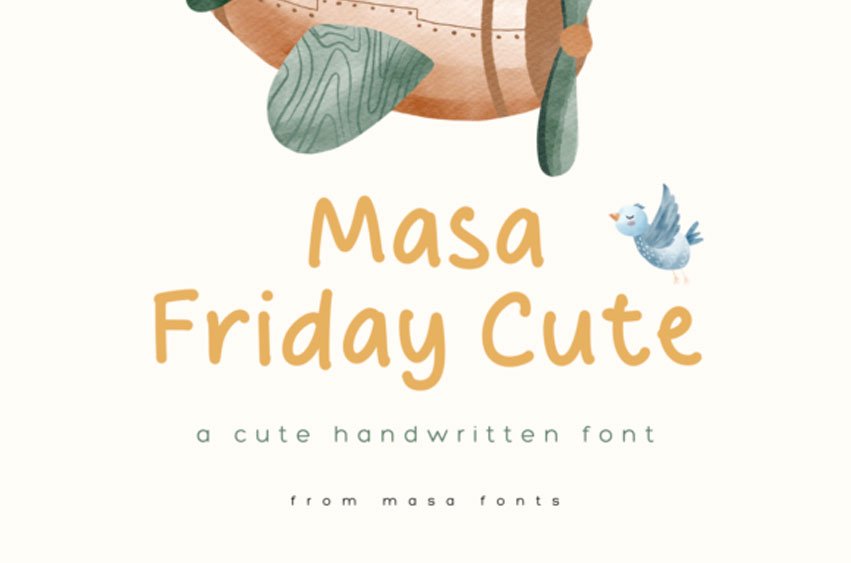
Masa Friday Cute Font is a cute, friendly and fun display font.
Whether you’re using it for crafts, digital design, presentations, or making greeting cards, this font has the potential to become your favorite go-to font, no matter the occasion!